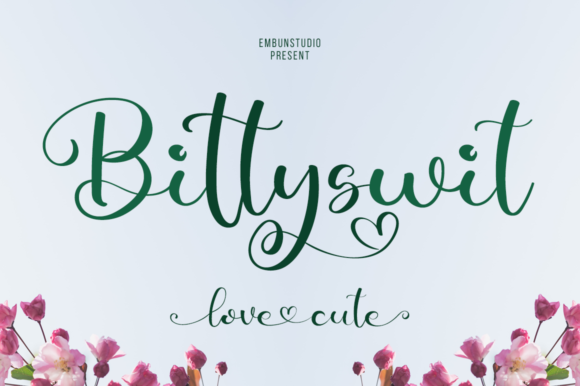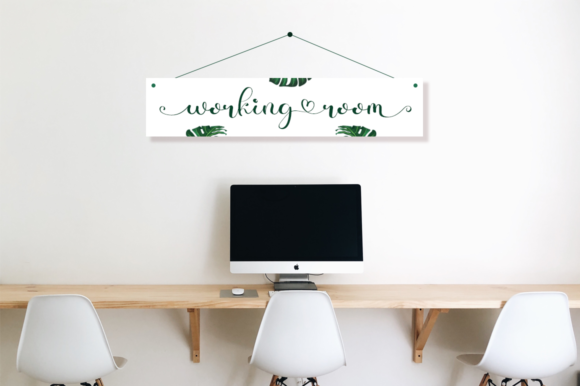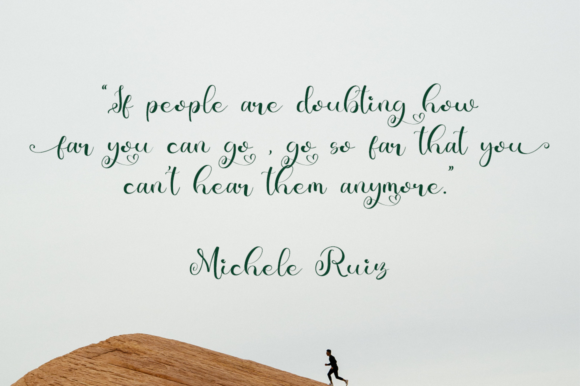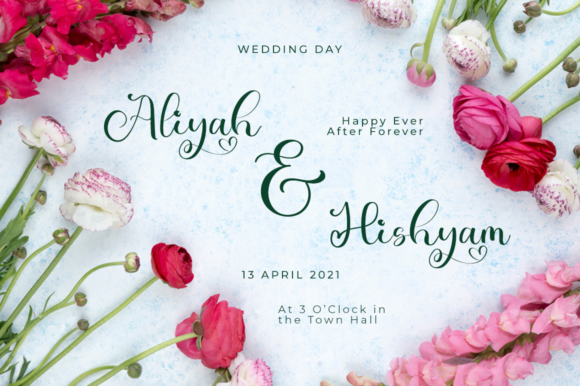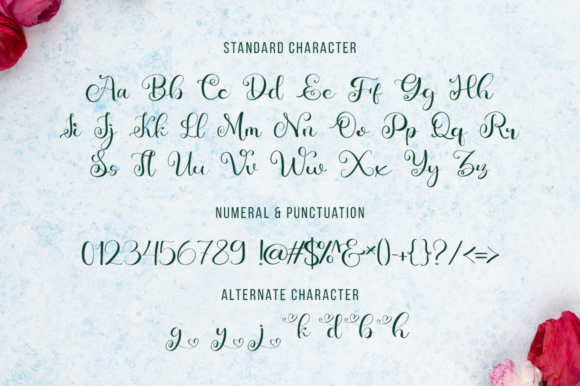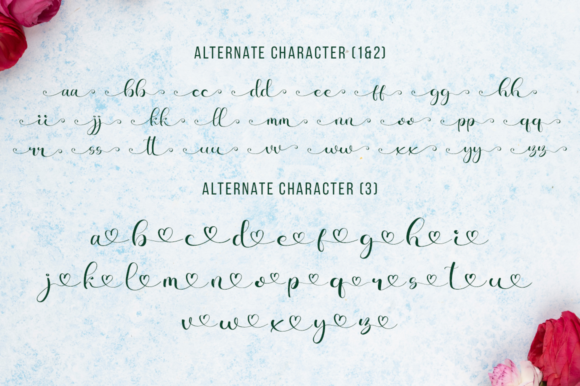
BittySwit Font
About BittySwit Font
Introducing BittySwit, a romantic handwritten font that exudes a playful and swirly vibe. With its charming characters and unique style, BittySwit is the perfect choice for adding a touch of romance to your designs.
BittySwit is particularly well-suited for wedding invitations, where its whimsical and romantic nature can enhance the overall aesthetic. Its swirly characters create an elegant and dynamic look, making each letter feel like a work of art. Capture the essence of love and celebration with BittySwit as you invite others to share in your special day.
In addition to wedding invitations, BittySwit is also a great choice for photography watermarks, thank you cards, and other cute projects. Its playful vibe adds a delightful touch, making your designs stand out and leaving a lasting impression.
With its PUA encoding, accessing the special glyphs and swashes of BittySwit is easy. You can effortlessly incorporate decorative elements and flourishes into your designs, allowing for a personalized and customized touch. Let your creativity flow as you explore the various options available with BittySwit’s extensive character set.
Let BittySwit bring a touch of romance and playfulness to your projects. Whether it’s wedding invitations, photography watermarks, or other cute designs, this font is sure to add a delightful and whimsical charm. Unlock the full potential of BittySwit’s swirly characters and playful vibe, and create designs that evoke joy and warmth.
So, embrace the romantic and playful nature of BittySwit and let it enhance your designs. With its PUA encoded glyphs and swashes, the possibilities are endless. Create captivating and unique designs that reflect your personal style and leave a lasting impression on your audience.